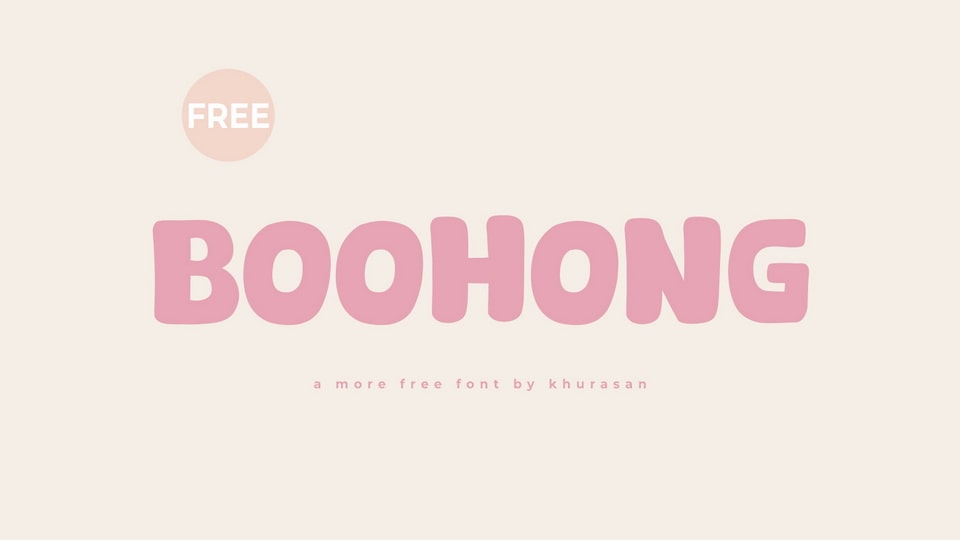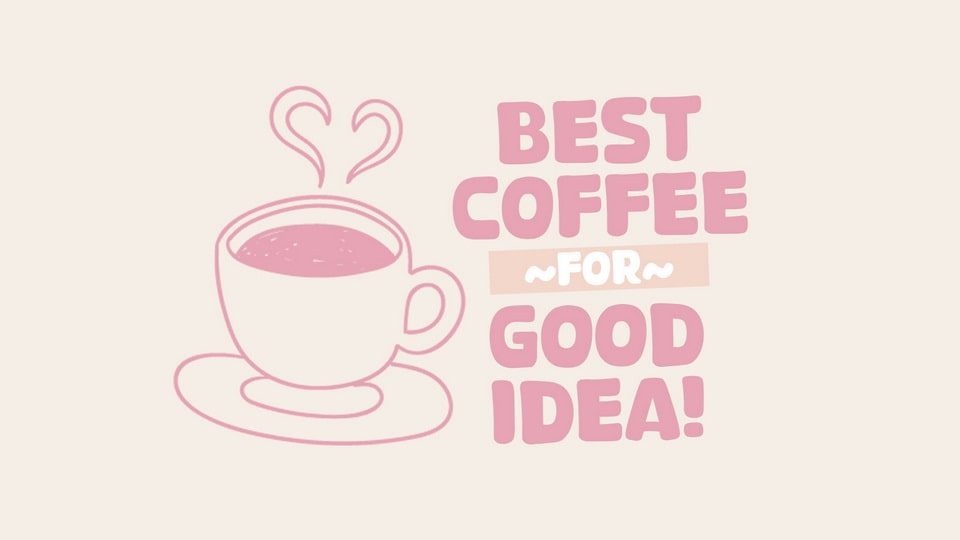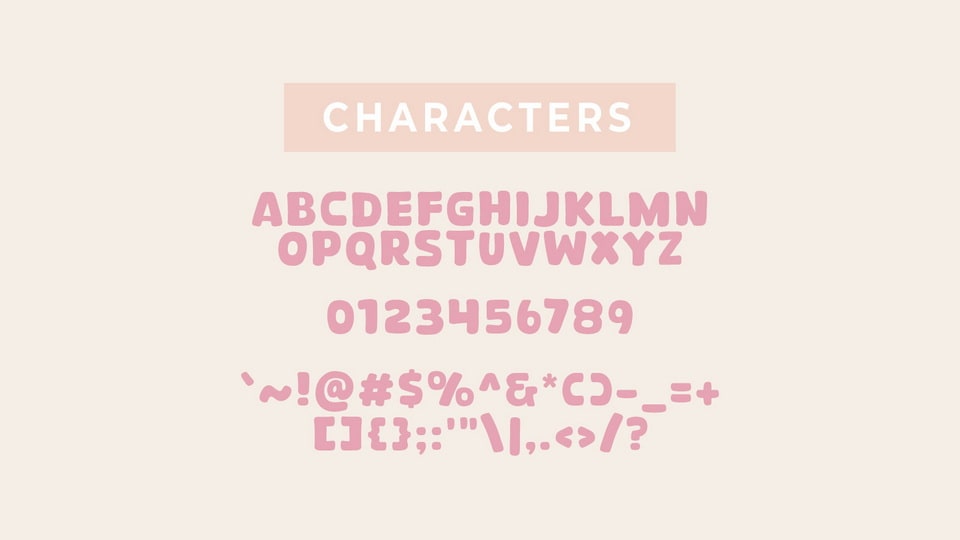
Boohong is a vibrant hand-crafted cartoon font designed to infuse your designs with fun and whimsy. Crafted with bold strokes and playful details, the font transforms your text into a lively and comical typographic experience.
This font’s bold and funny charm makes it ideal for projects that require a touch of lightheartedness, from comic strips to quirky branding. Boohong font stands out as a versatile and visually engaging choice, adding a comedic flair that turns your typographic compositions into a playful showcase.